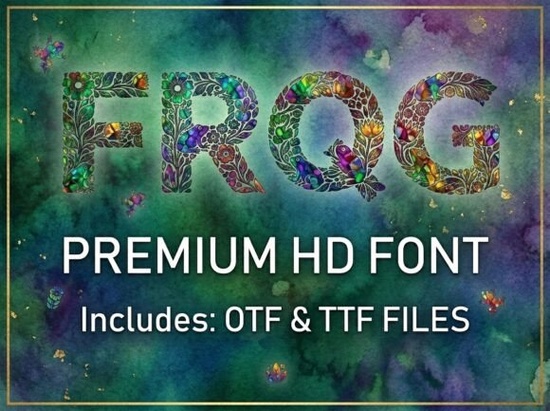
Choosing the right typography can make or break a design project, especially when you need something that grabs attention immediately. If you are looking for a typeface with a strong visual personality, the Frog Font is designed to be the center of attention. This decorative display font features unique artistic elements that help creators break away from ordinary design trends. It is particularly useful for those working on bold headlines, artistic logos, and creative packaging where a professional yet polished finish is required.
Many designers struggle to find a font that balances creativity with readability. This typeface solves that by offering a distinct look without sacrificing clarity in large sizes. Whether you are a crafters selling on Etsy, a print-on-demand seller creating t-shirts, or a small business owner designing your brand identity, understanding the specific strengths of this tool is key.
What kind of visual style does it offer?
The core appeal of this font lies in its decorative nature. It is not meant for long paragraphs of text but rather for short, impactful words. The letters are crafted to look like individual pieces of art. When you use it, every character stands out, making it ideal for situations where you want the text to act as an illustration itself.
Unlike standard sans-serif or serif options, this display typeface brings a specific mood to your work. It feels modern yet has a handcrafted touch. If you prefer something softer, you might explore softer, romantic scripts instead, but for high-impact visuals, this bold style works better. The design ensures that even simple words look complex and engaging, which helps in catching the eye of potential customers scrolling through social media or walking past a physical product.
Where should you use this typeface?
Because of its bold structure, this font shines in specific applications. It is versatile enough for various creative projects but works best where space allows the letters to breathe. Here are the top use cases:
- Logos: The unique shapes make for memorable brand marks.
- Headlines: Perfect for blog headers, YouTube thumbnails, or poster titles.
- Packaging: Adds a premium feel to product labels and boxes.
- Merchandise: Looks great on t-shirts, mugs, and tote bags.
If you are designing a logo, remember that simplicity often wins. This font provides complexity through its shape, so keep the rest of your logo design clean. For those who enjoy whimsical themes, you might also consider whimsical choices such as Pink Clover for a different vibe, but this option remains superior for bold statements. It ensures your brand name is legible even from a distance, which is crucial for packaging and signage.
Are there technical limitations to know?
Before purchasing, it is vital to understand the file structure and character set. This font is an ALL-CAPS display typeface. It does not include lowercase letters. This is a deliberate design choice to maintain consistency in the artistic style. If you need to type sentences with mixed casing, this will not work for you. It is specifically designed for high-impact headlines where every letter is a work of art.
What are some similar design options?
While this font has a unique personality, exploring similar styles can help you build a cohesive brand kit. Sometimes you need a primary font for headlines and a secondary one for subheaders. If you like the playful energy here, you might check out playful alternatives like Holla Molli. Comparing different display fonts helps you understand what fits your specific niche.
For more details on this specific style, you can visit the frog font display fonts category page to see related items. Building a library of fonts allows you to switch things up without losing your brand's visual identity. Just ensure that any secondary font complements the bold nature of this primary choice rather than competing with it.
Taking these steps ensures your final output looks professional and polished. Whether you are making a logo for a new startup or a graphic for a social media post, the right preparation makes the design process smoother.